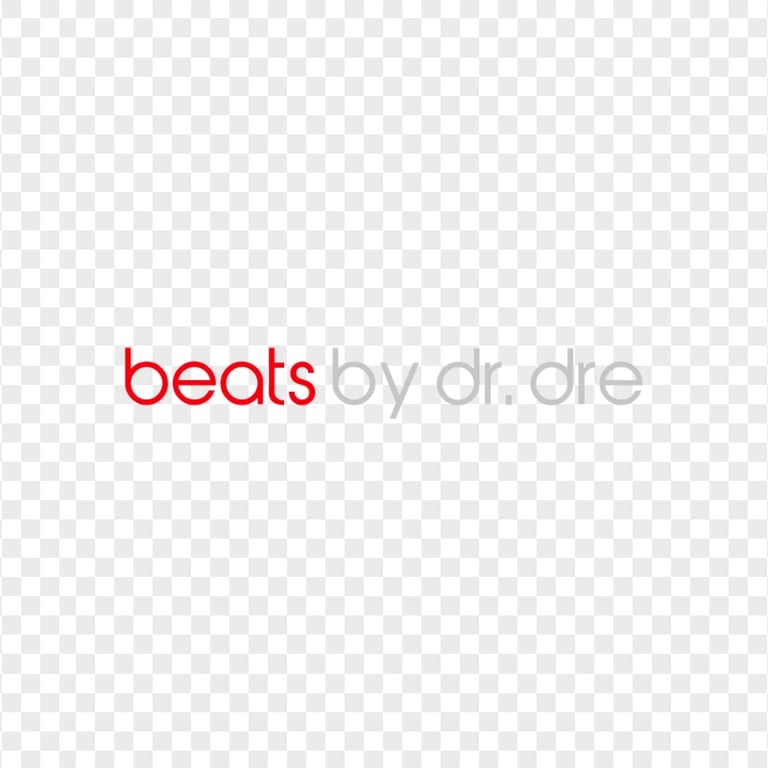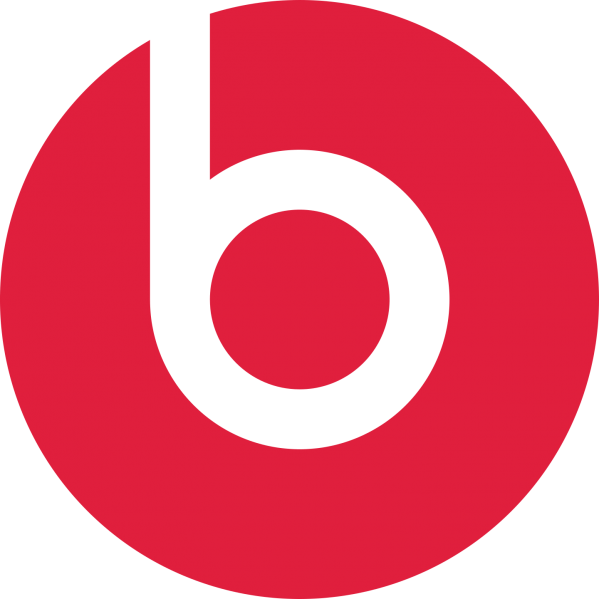
Beats By Dre Logo Font . Browse by alphabetical listing, by style, by author or by popularity. The abeat font is used for branding, marketing, and wordmark. So although some people may enjoy it, it is not an accurate representation of how the song was supposed to sound. Browse by alphabetical listing, by style, by author or by popularity. Click to find the best 15 free fonts in the beats style. The beats by dre logo consists of two parts — an iconic image and a soft rounded wordmark. The logo is the primary and enduring symbol representing beats electronics, a company renowned for its audio products, particularly. The beats by dre logo font is abeat. The wordmark is executed in smooth lowercase sans serif font. Beats by dre logo fonts. Every font is free to download! Archive of freely downloadable fonts. The sound on beats is really colored. Archive of freely downloadable fonts.
The beats by dre logo consists of two parts — an iconic image and a soft rounded wordmark. Browse by alphabetical listing, by style, by author or by popularity. The sound on beats is really colored. The abeat font is used for branding, marketing, and wordmark. The wordmark is executed in smooth lowercase sans serif font. Click to find the best 15 free fonts in the beats style. Archive of freely downloadable fonts. The beats by dre logo font is abeat. Every font is free to download! Browse by alphabetical listing, by style, by author or by popularity.
Beats By Dre Logo Font The wordmark is executed in smooth lowercase sans serif font. Archive of freely downloadable fonts. The wordmark is executed in smooth lowercase sans serif font. The beats by dre logo font is abeat. Beats by dre logo fonts. So although some people may enjoy it, it is not an accurate representation of how the song was supposed to sound. Archive of freely downloadable fonts. The sound on beats is really colored. Browse by alphabetical listing, by style, by author or by popularity. The logo is the primary and enduring symbol representing beats electronics, a company renowned for its audio products, particularly. The beats by dre logo consists of two parts — an iconic image and a soft rounded wordmark. Click to find the best 15 free fonts in the beats style. Browse by alphabetical listing, by style, by author or by popularity. Every font is free to download! The abeat font is used for branding, marketing, and wordmark.
Beats by Dre Logo and symbol, meaning, history, sign. Beats By Dre Logo Font Browse by alphabetical listing, by style, by author or by popularity. The sound on beats is really colored. Every font is free to download! Archive of freely downloadable fonts. The abeat font is used for branding, marketing, and wordmark. The beats by dre logo consists of two parts — an iconic image and a soft rounded wordmark. Archive of freely. Beats By Dre Logo Font.
Logo Beats By Dr. Dre HD⎪Vector illustrator (ai.) Tech company logos Beats By Dre Logo Font Browse by alphabetical listing, by style, by author or by popularity. Archive of freely downloadable fonts. Every font is free to download! The abeat font is used for branding, marketing, and wordmark. The logo is the primary and enduring symbol representing beats electronics, a company renowned for its audio products, particularly. Click to find the best 15 free fonts in. Beats By Dre Logo Font.
Beats By Dre Logo Png Beats By Dre Logo Font The beats by dre logo font is abeat. Browse by alphabetical listing, by style, by author or by popularity. Archive of freely downloadable fonts. Beats by dre logo fonts. Browse by alphabetical listing, by style, by author or by popularity. The abeat font is used for branding, marketing, and wordmark. So although some people may enjoy it, it is not. Beats By Dre Logo Font.
Beats by Dre Logo LogoDix Beats By Dre Logo Font The beats by dre logo font is abeat. The beats by dre logo consists of two parts — an iconic image and a soft rounded wordmark. The abeat font is used for branding, marketing, and wordmark. Archive of freely downloadable fonts. The wordmark is executed in smooth lowercase sans serif font. The logo is the primary and enduring symbol representing. Beats By Dre Logo Font.
Wallpaper logo, blue, circle, lens flare, operating system, brand Beats By Dre Logo Font Browse by alphabetical listing, by style, by author or by popularity. The abeat font is used for branding, marketing, and wordmark. Every font is free to download! Archive of freely downloadable fonts. The logo is the primary and enduring symbol representing beats electronics, a company renowned for its audio products, particularly. The sound on beats is really colored. The wordmark. Beats By Dre Logo Font.
beats.by.dre Black logo, Gallery logo, Sugar daddies Beats By Dre Logo Font Browse by alphabetical listing, by style, by author or by popularity. Browse by alphabetical listing, by style, by author or by popularity. The abeat font is used for branding, marketing, and wordmark. Archive of freely downloadable fonts. So although some people may enjoy it, it is not an accurate representation of how the song was supposed to sound. Click to. Beats By Dre Logo Font.
Beats by Dre Logo Vector BlogoVector Beats By Dre Logo Font The wordmark is executed in smooth lowercase sans serif font. So although some people may enjoy it, it is not an accurate representation of how the song was supposed to sound. Beats by dre logo fonts. Click to find the best 15 free fonts in the beats style. Browse by alphabetical listing, by style, by author or by popularity. The. Beats By Dre Logo Font.
Beats monogram Beats, Beats by dr, Art logo Beats By Dre Logo Font Browse by alphabetical listing, by style, by author or by popularity. The logo is the primary and enduring symbol representing beats electronics, a company renowned for its audio products, particularly. The sound on beats is really colored. The abeat font is used for branding, marketing, and wordmark. The beats by dre logo font is abeat. The wordmark is executed in. Beats By Dre Logo Font.
Beats Logo Logo, zeichen, emblem, symbol. Geschichte und Bedeutung Beats By Dre Logo Font So although some people may enjoy it, it is not an accurate representation of how the song was supposed to sound. The beats by dre logo font is abeat. The wordmark is executed in smooth lowercase sans serif font. Browse by alphabetical listing, by style, by author or by popularity. Archive of freely downloadable fonts. Click to find the best. Beats By Dre Logo Font.